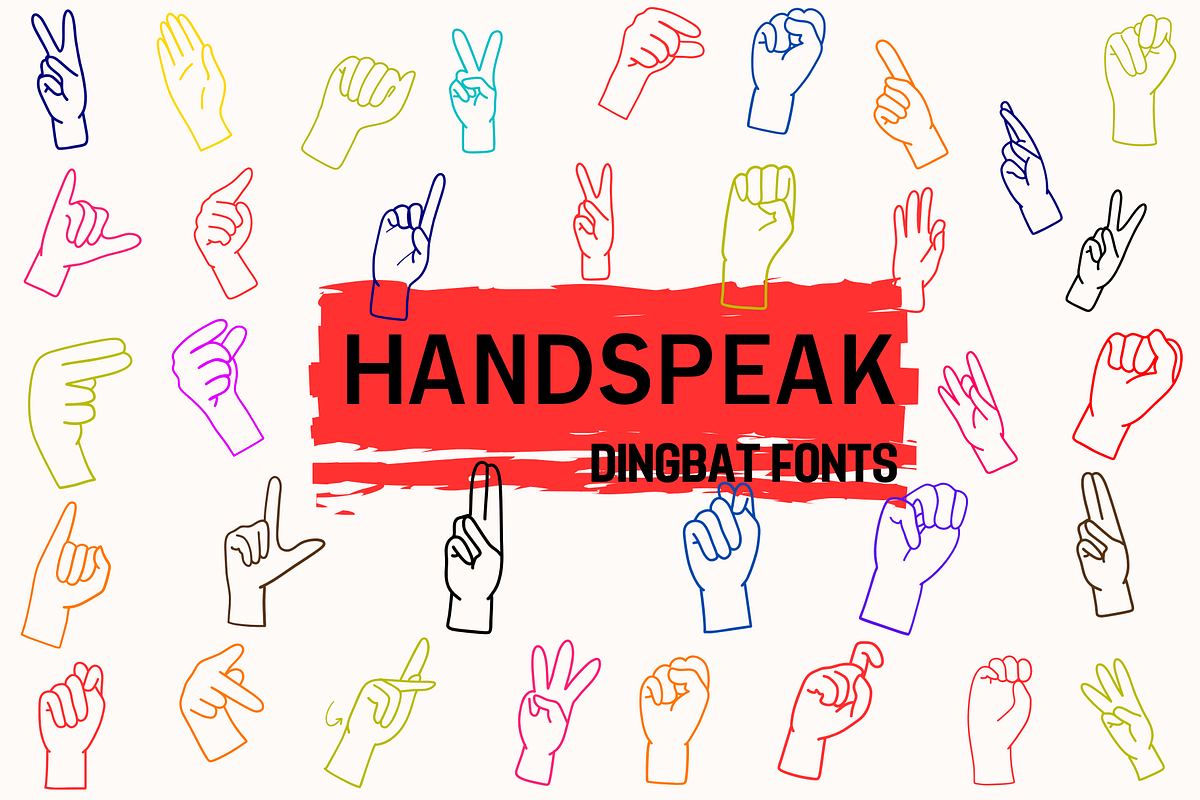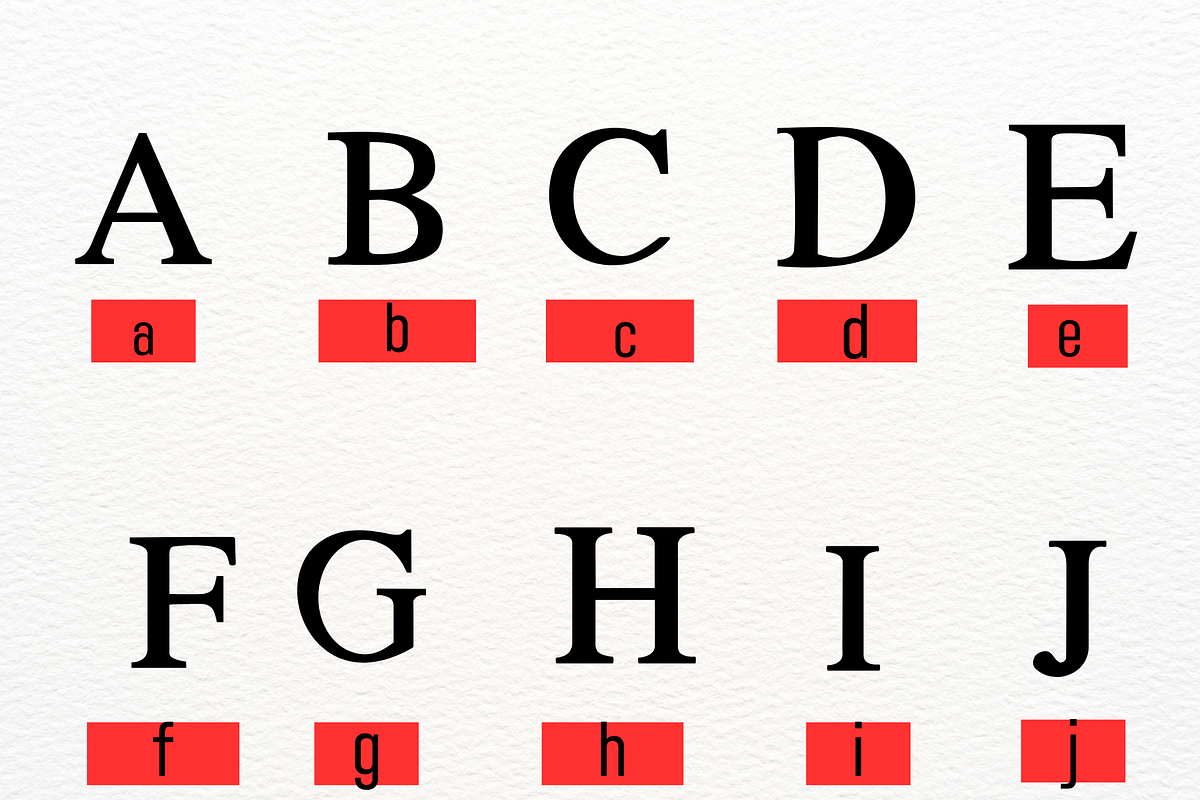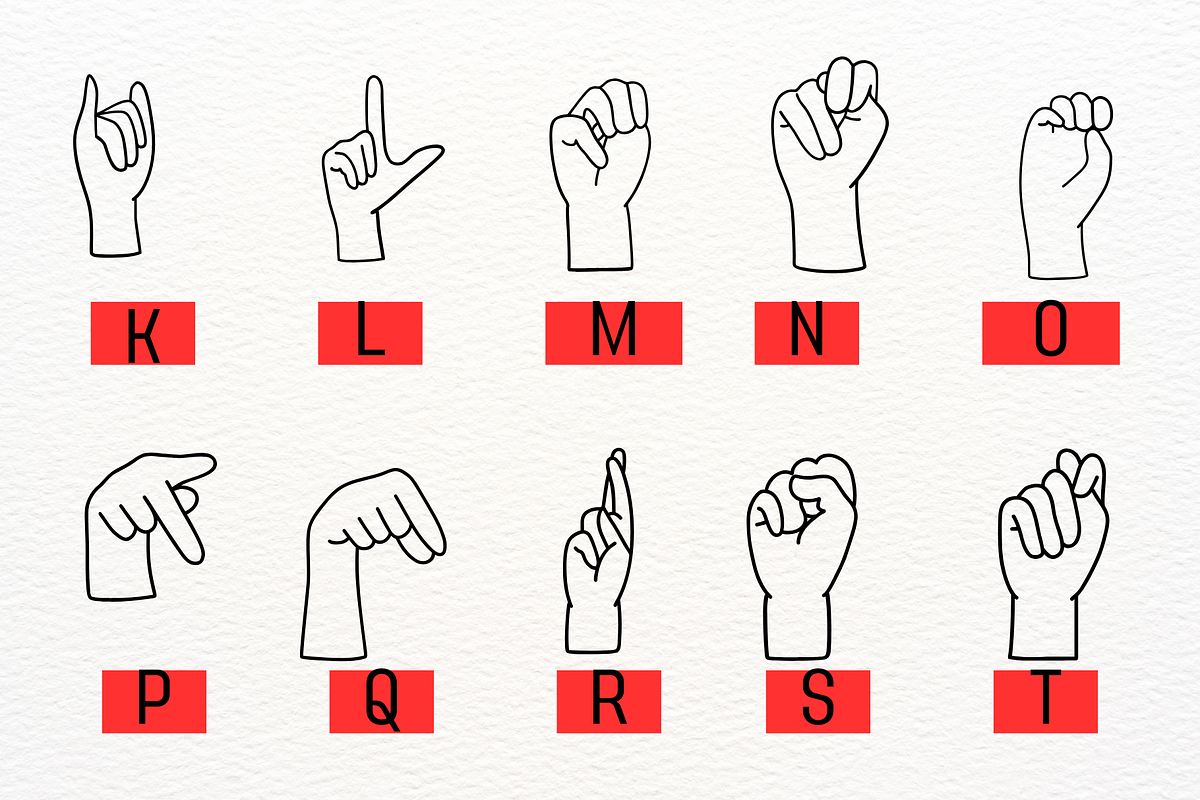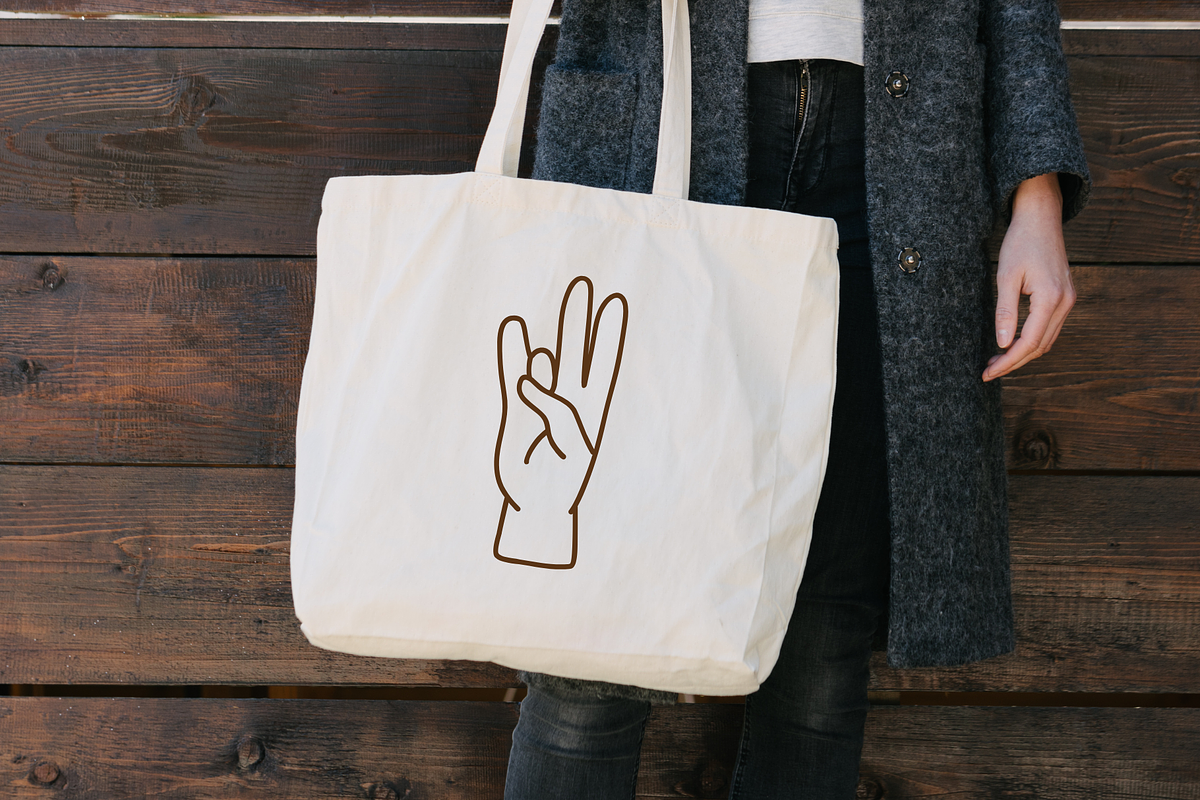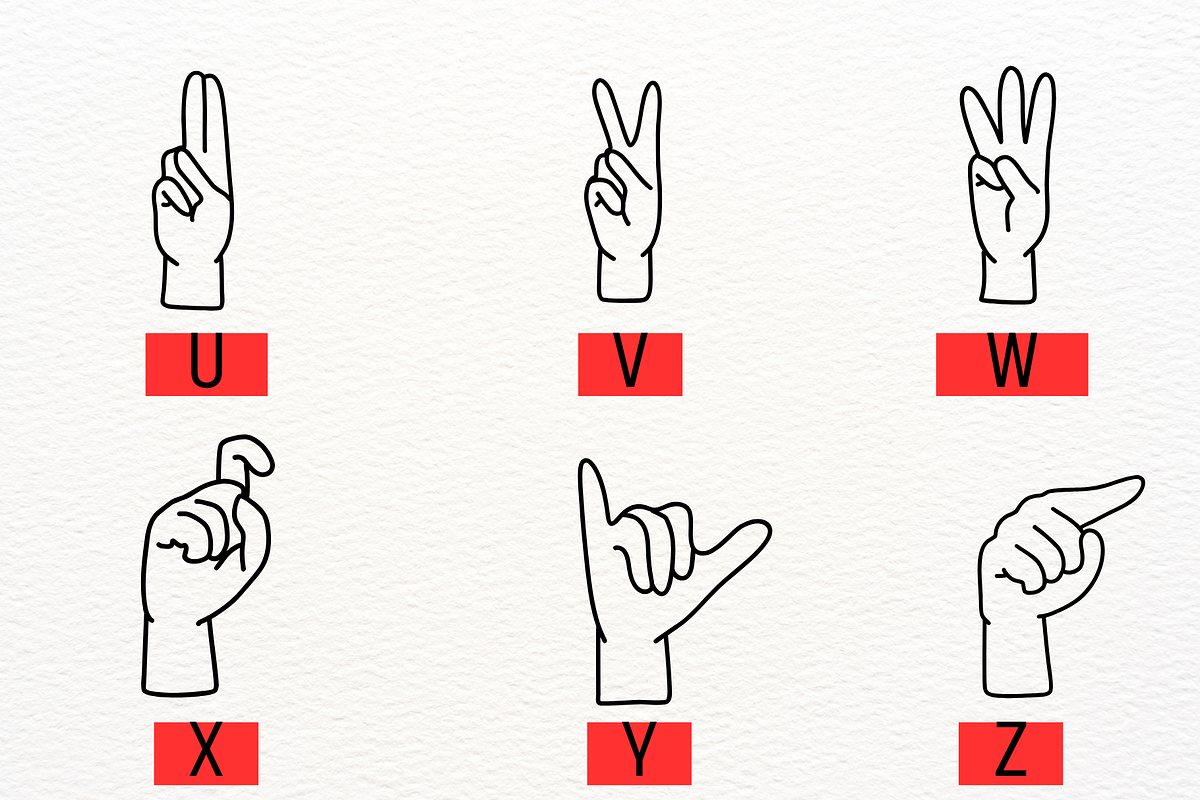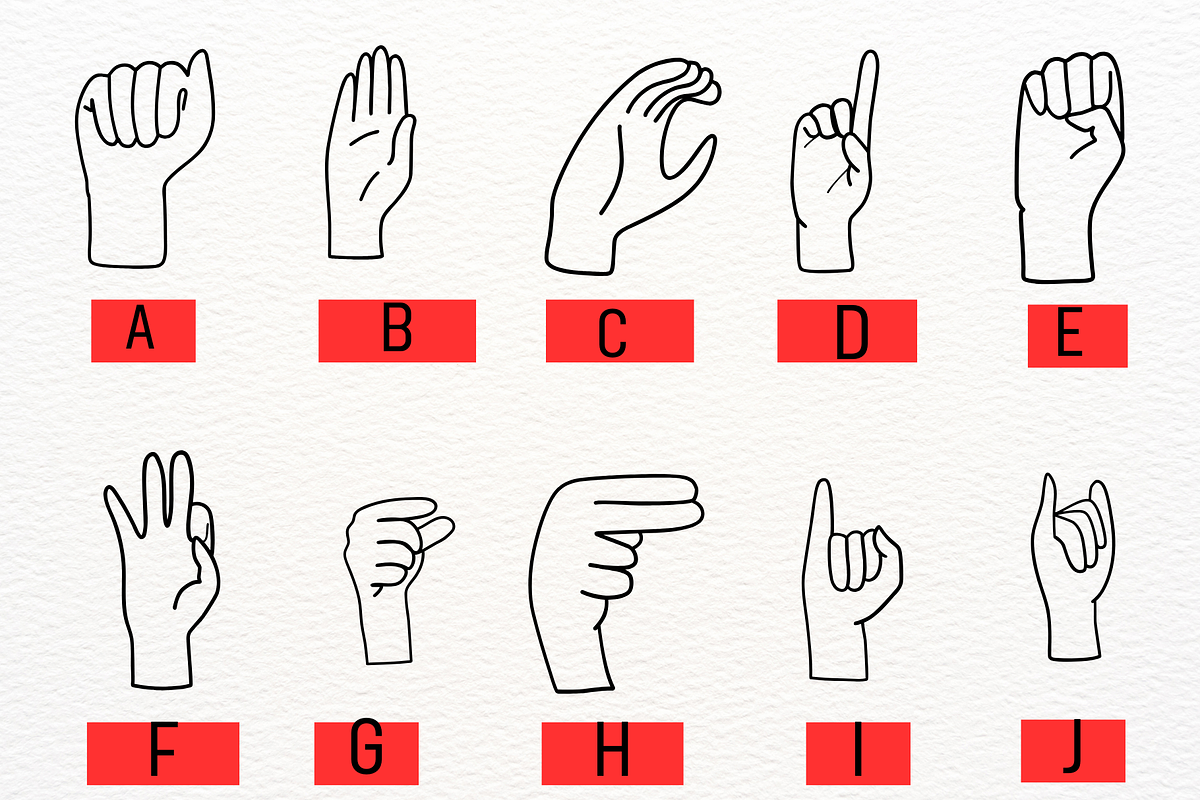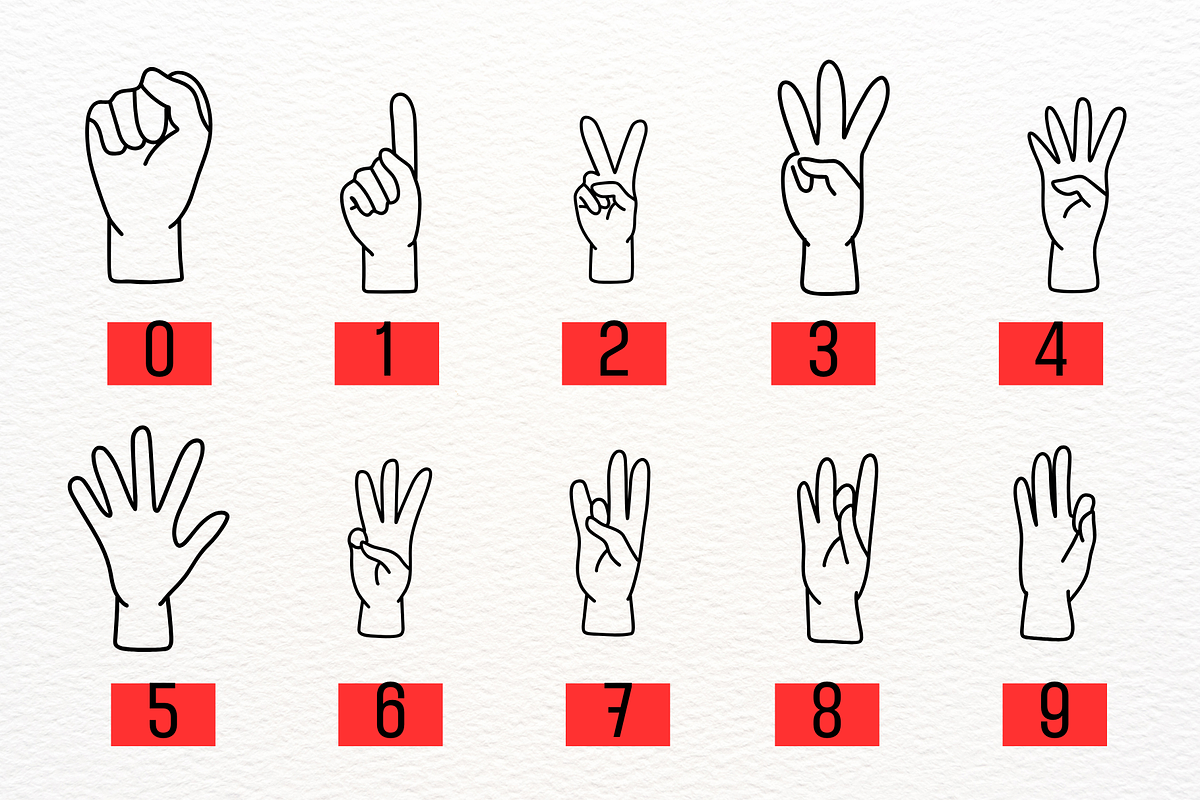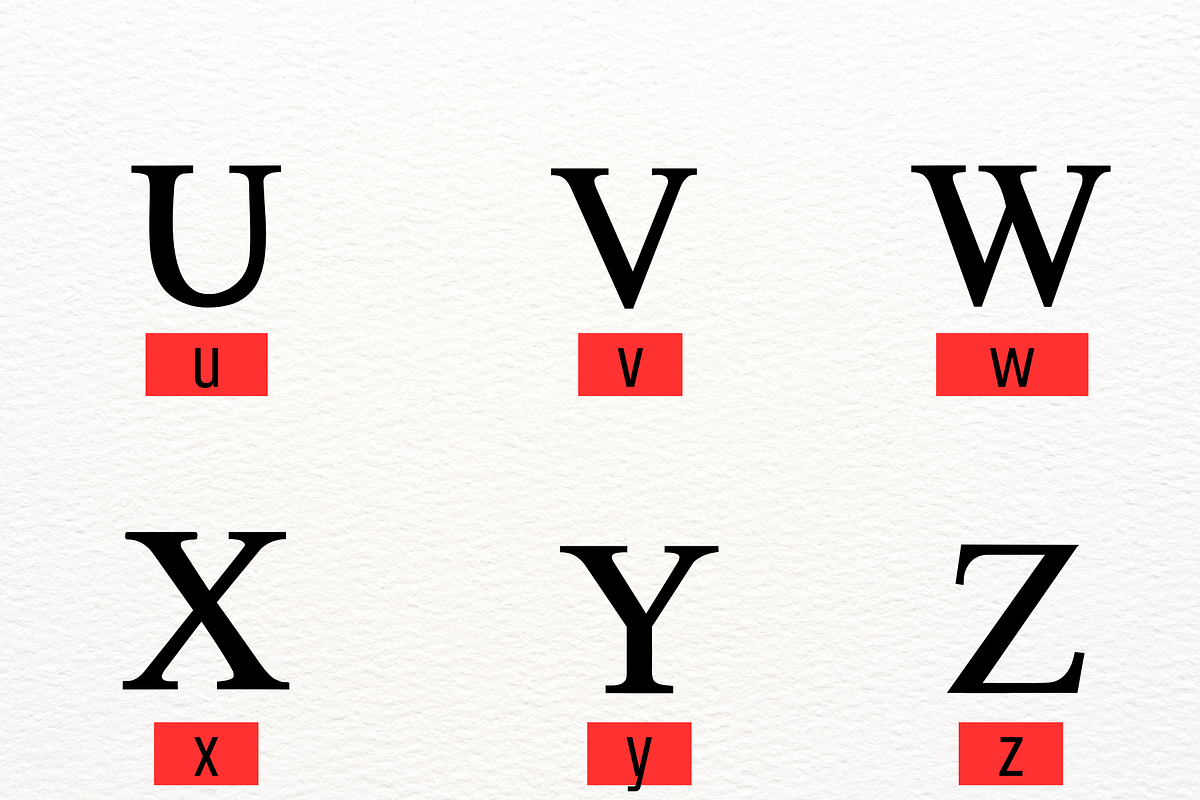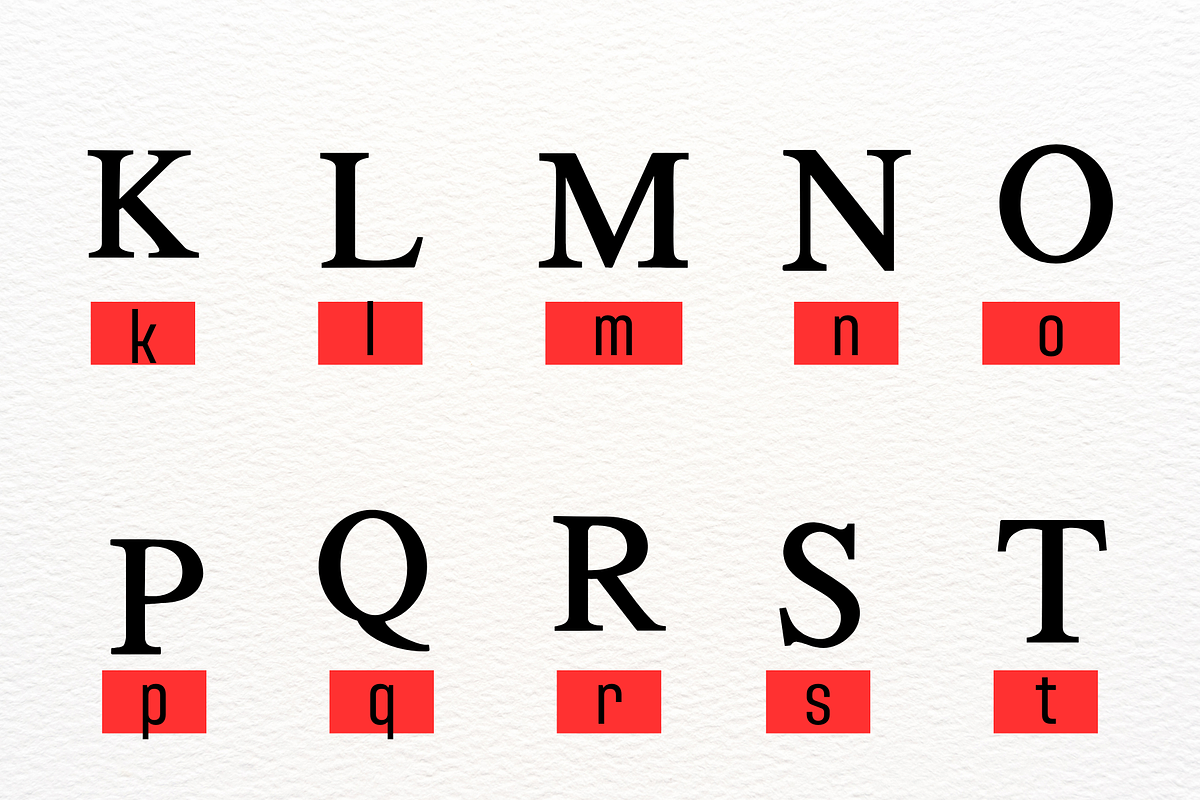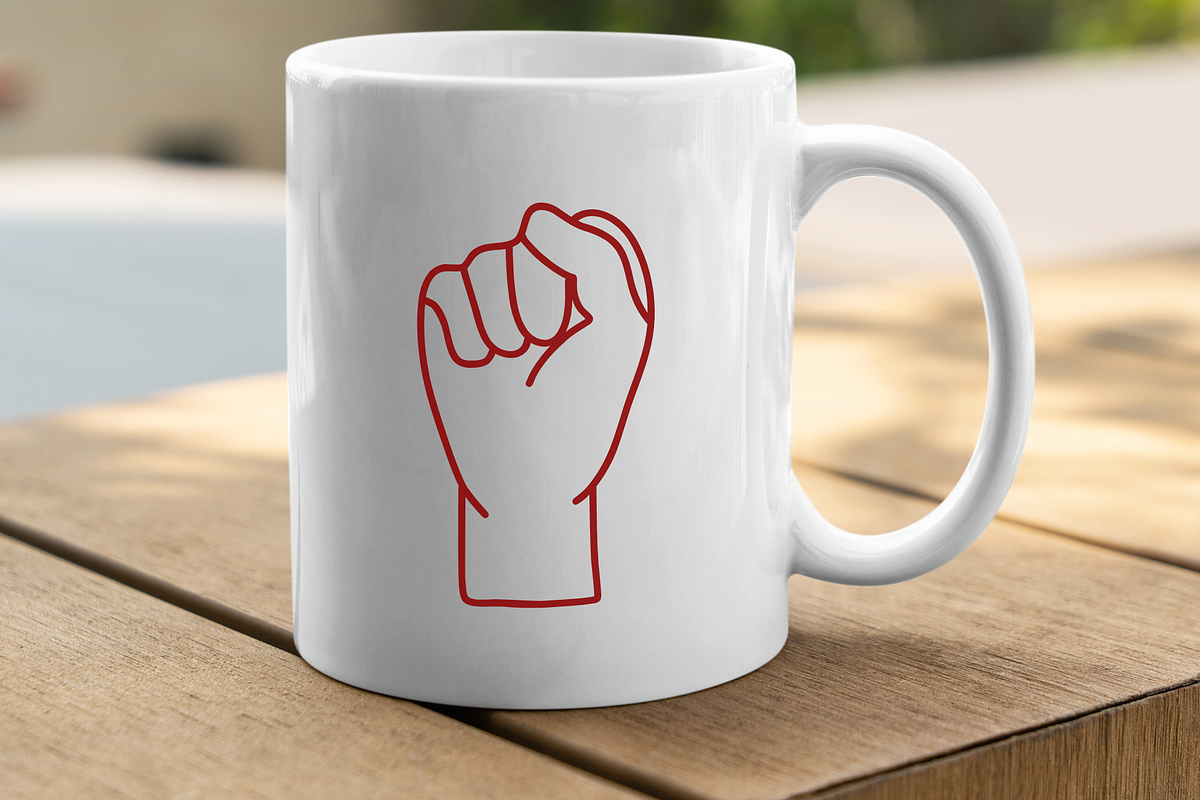
Handspeak
HANDSPEAK - Hand Gesture Dingbat Font Introducing HANDSPEAK, a unique dingbat font featuring a collection of hand-drawn hand gestures and sign language symbols. This font is perfect for designers, educators, and creators who want to incorporate expressive hand signs into their projects.